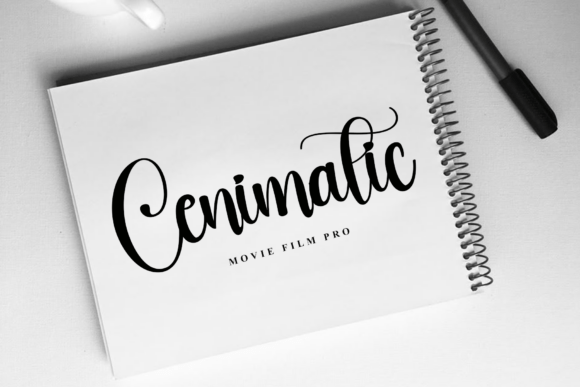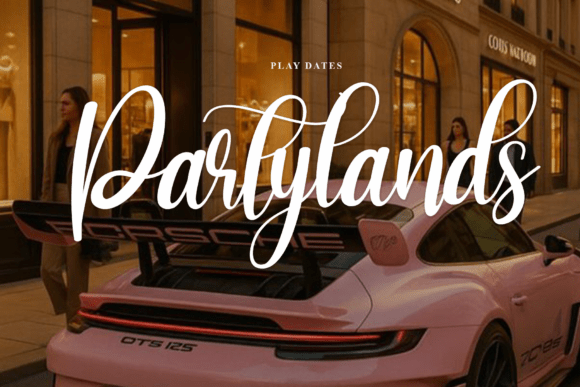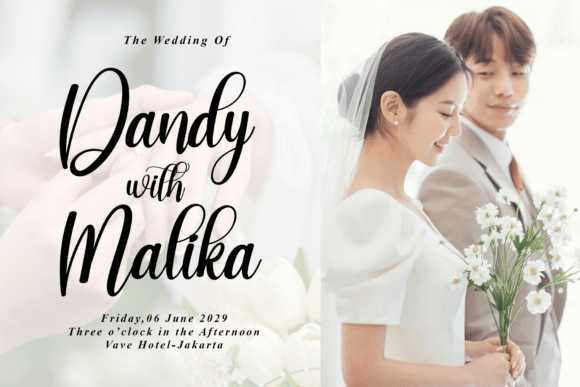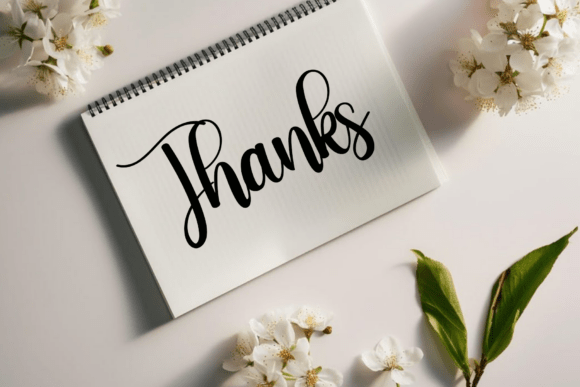
Introduction to Coffee Guide Font
Coffee Guide is a graceful and modern handwritten script font that combines professionalism with a touch of romance.
Its flowing lines, heart-shaped swashes, and smooth curves make it ideal for everything from business branding to wedding invitations Whether youโre designing logos, social posts, or stationery, Coffee Guide adds an elegant personal touch with charm and warmth.
Key Features of Coffee Guide Font
Why Choose Coffee Guide Font?
Coffee Guide Font offers exceptional quality and versatility, making it a valuable addition to your design toolkit. Whether you’re creating for personal projects or commercial use, Coffee Guide Font delivers professional results.